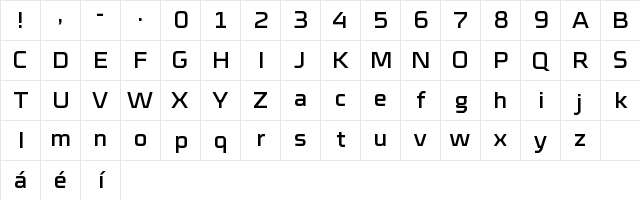
Complete Cube Regular glyph index. Displaying only characters natively supported by Cube Regular font.
Cube is a composed and adaptable typeface that performs quietly and consistently across a wide range of design contexts.